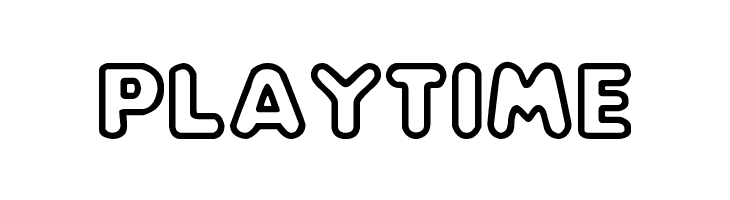
A playful, hand-drawn font with bold, rounded characters and whimsical curves.
A bold, blackletter-style font with sharp, angular lines and intricate details.
A casual, handwritten-style font with flowing, slightly irregular strokes.
A bold, playful font with rounded, bubble-like characters.
A classic serif font with bold uppercase and readable lowercase letters.
A playful and casual handwritten font with dynamic strokes.
A sophisticated, flowing script font with elegant, interconnected strokes.
A cursive, handwritten font with elegant, flowing strokes and interconnected letters.
A bold, geometric outline font with a modern and structured appearance.
A bold, geometric font with abstract cutouts and a modern aesthetic.